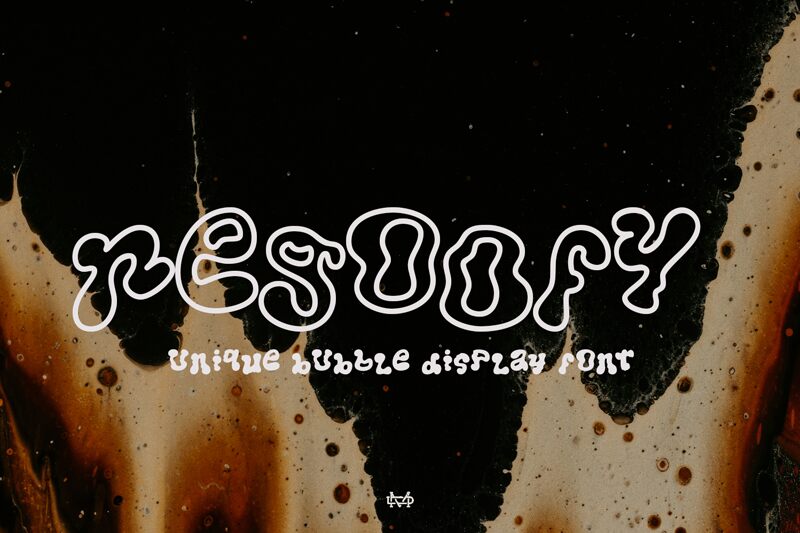
Regoofy font by madeDeduk is a free groovy typeface inspired by the whimsical side of retro aesthetics. Its eye-catching design blends fluid, energetic, and informal elements to produce a fun type style that satisfies many visual needs. Large shapes dominate Regoofy and give it a great potential for decorative purposes and experimental designs.